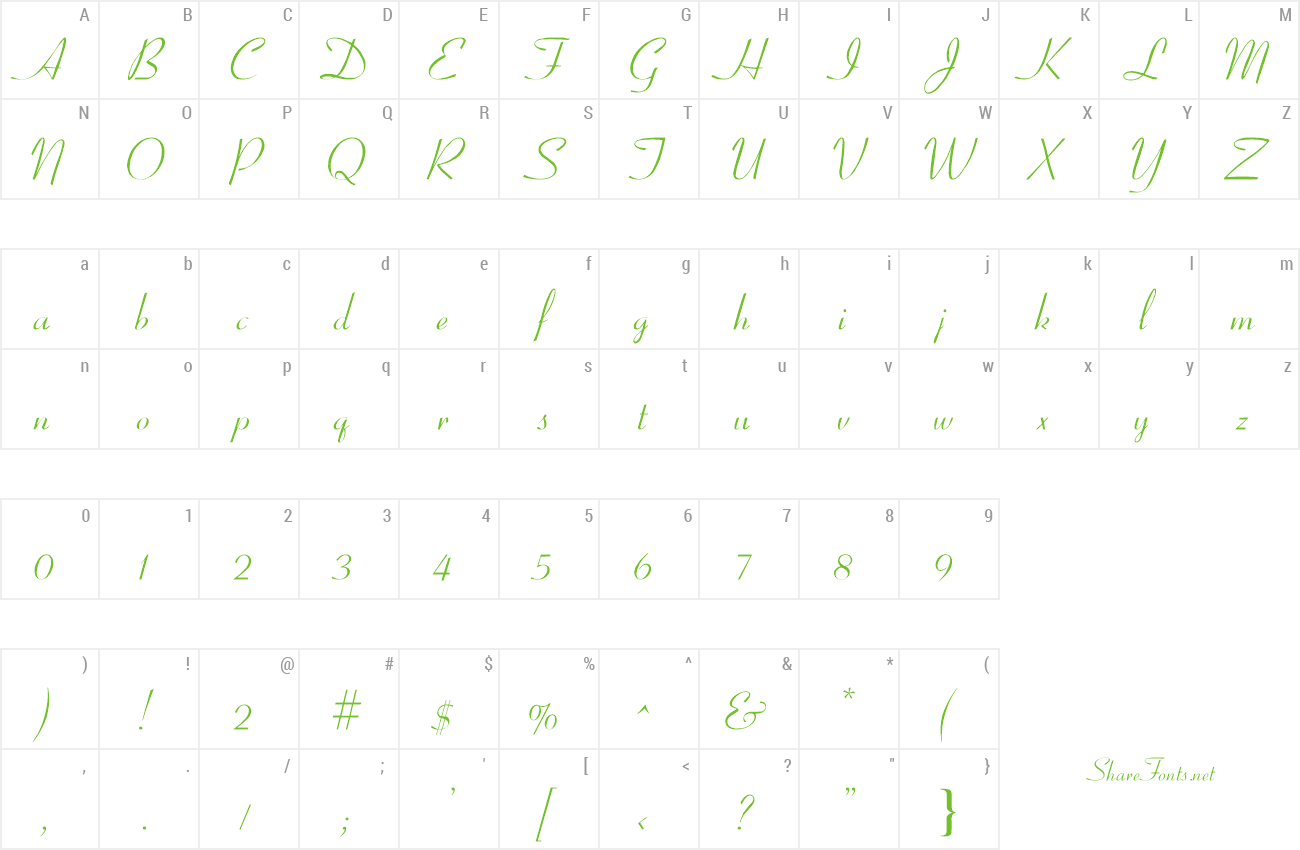
Script Ohio Font
Script Ohio Font - Ohio script is a script font with 400 characters and a fixed encoding scheme. Truetype and opentype fonts available. Does anyone know this font modeled after the ohio state marching band's script ohio? Ohio_scr.ttf windows and mac os x compatible. Download the zip archive or the ttf file and install it on your. Free ohio script font download.